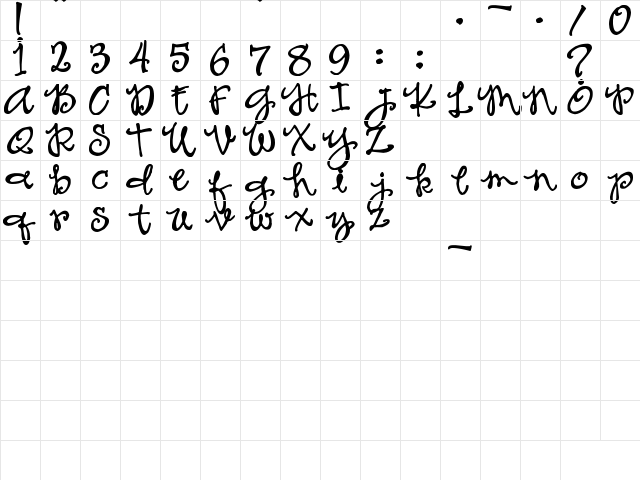
Ms to try a bon? Regular
Design Context for Ms to try a bon? Typeface
Ms to try a bon? is a composed and adaptable typeface that performs quietly and consistently across a wide range of design contexts.
Pro Tip: Use Ms to try a bon? in both headline and body roles to test its range before committing to a single application.